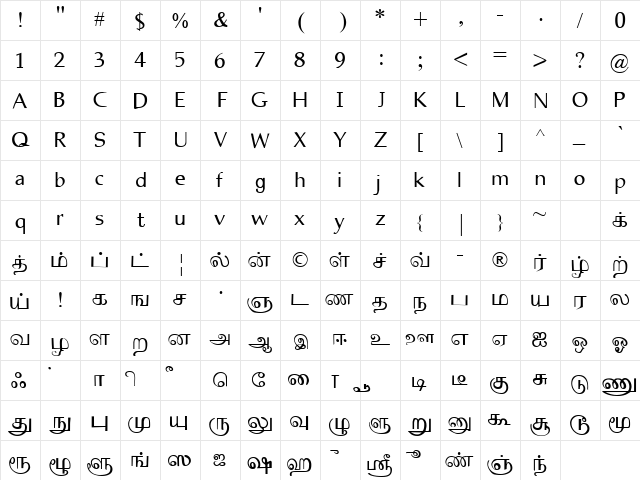
TAMILFIX Normal
Design Context for TAMILFIX Typeface
TAMILFIX takes a measured approach to typography — its balanced proportions and neutral character make it a reliable workhorse for both digital and print work.